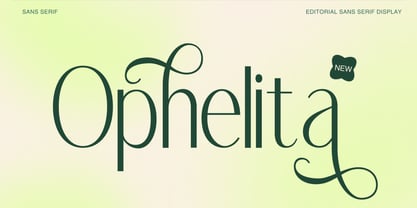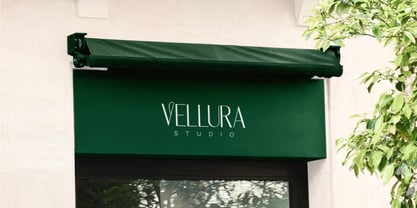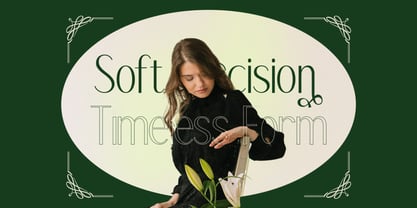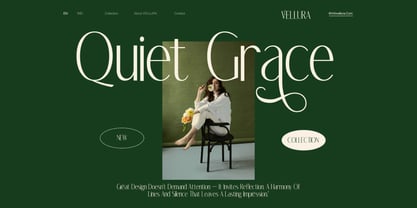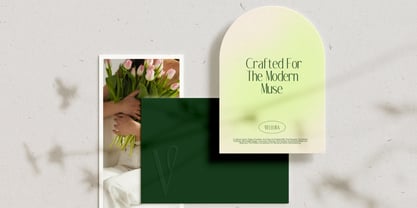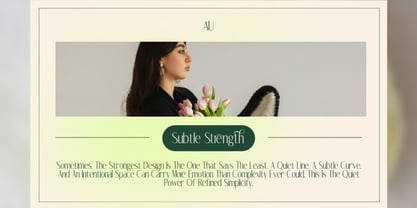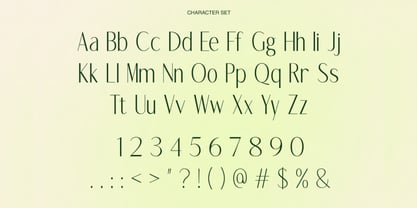
Ophelita
by Rasio Studio
The Ophelita Font Family was designed by Fajar Indra and published by Rasio Studio. Ophelita contains 1 styles. More about this family
Ophelita is a refined editorial sans serif display font that blends modern minimalism with graceful artistic expression. Its tall, elegant letterforms feature subtle high contrast and fluid curves, while the signature swash characters add a poetic, stylish touch to headlines and branding compositions. The clean sans structure ensures excellent readability, while the expressive alternates give designers room for creativity in logos, magazine titles, posters, and fashion-driven layouts. Ophelita includes uppercase, lowercase, numerals, punctuation, and decorative stylistic accents, making it a versatile choice for contemporary and elegant visual projects.